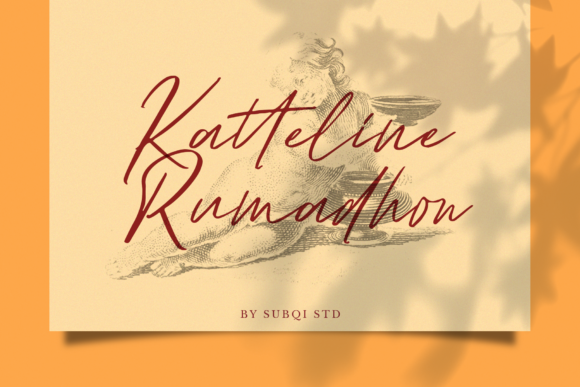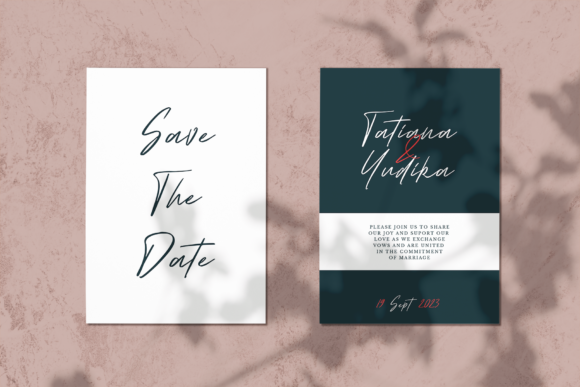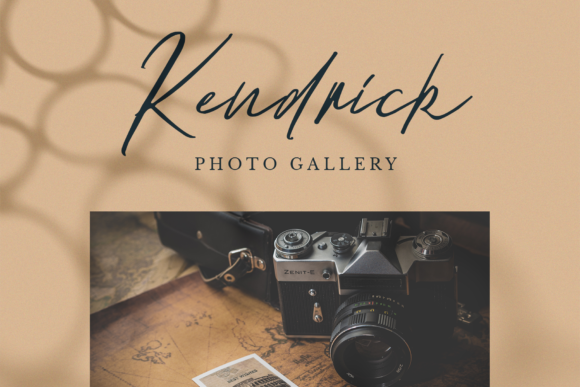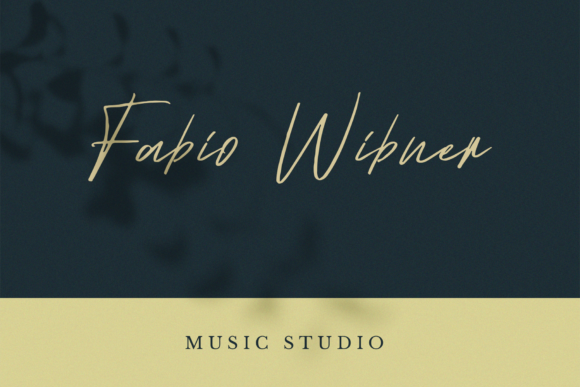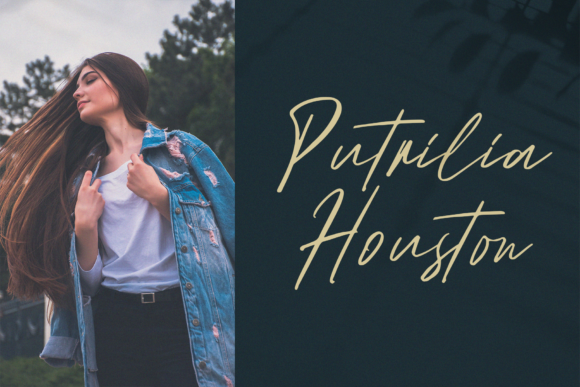
HomeScript FontsKatteline Rumadhon Font Script Fonts Katteline Rumadhon Font FacebookXPinterestWhatsApp Katteline Rumadhon Font Poster 2 Katteline Rumadhon Font Poster 3 Katteline Rumadhon Font Poster 4 Katteline Rumadhon Font Poster 5 About Katteline Rumadhon Font Katteline Rumadhon is a cool and fun script with a unique style. Get inspired by its modern style. DOWNLOAD NOW People also explored Poiches Font Blooming Valerian Font Pocket Notebook Studio Brilliant Signature Font Signature Austine Font Amathyste Font Beach Town Script Font The Sponge Font Black Horse Font 313 0 TagsKatteline Rumadhon Font Previous articleChristmastime FontNext articleMojang Script Font LEAVE A REPLY Cancel reply Comment: Please enter your comment! Name:* Please enter your name here Email:* You have entered an incorrect email address! Please enter your email address here Website: Save my name, email, and website in this browser for the next time I comment. Personal Use Free Doriss Girls Family Personal Use Free Read more about this font Lightning Script Personal Use Free Read more about this font Hiters Personal Use Free Read more about this font Adrenaline Personal Use Free Read more about this font BLOG Free vs Paid Fonts: Why Investing in Premium Fonts Is Worth It Free vs Paid Fonts: Why Premium Fonts Are Worth It in 2025 The debate of free vs paid fonts continues in the design world. While... Top 7 Google Fonts Alternatives for Faster and Privacy-Friendly Web Design (2025) Top 10 Handwritten Fonts That Elevate Your Designs The 10 Best Handwriting Fonts to Add Personality to Your Designs